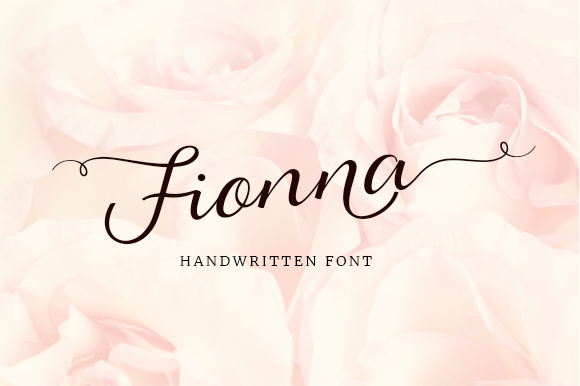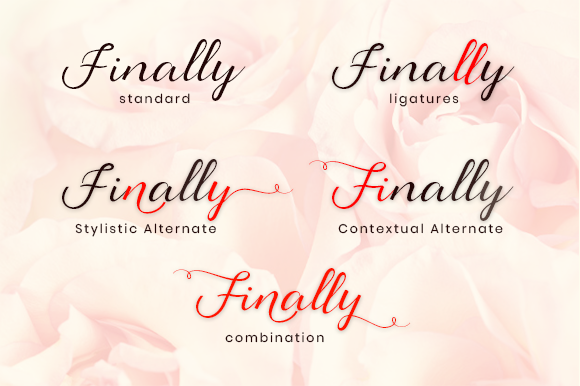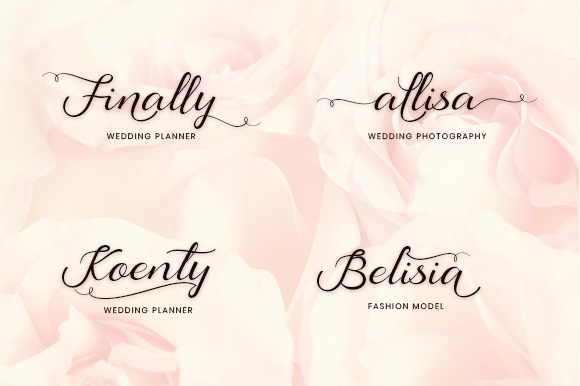
Fionna Font
About Fionna Font
Fionna is an elegant handwritten font. Fall in love with its authentic feel and use it to create gorgeous wedding invitations, beautiful stationary art, eye-catching social media posts, and cute greeting cards.